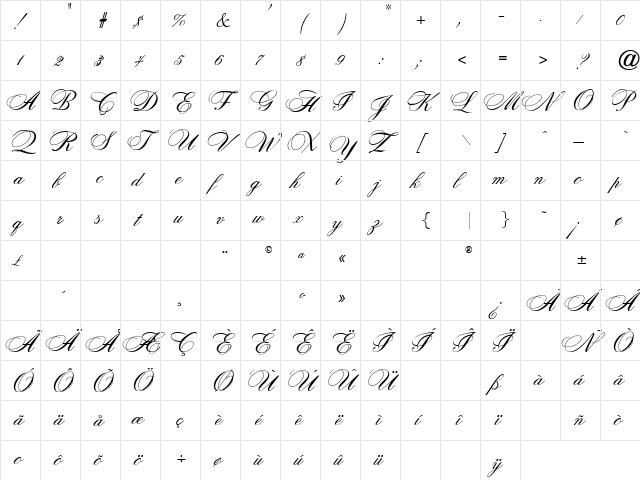
OPTICits Regular
Design Context for OPTICits Typeface
OPTICits is a composed and adaptable typeface that performs quietly and consistently across a wide range of design contexts.